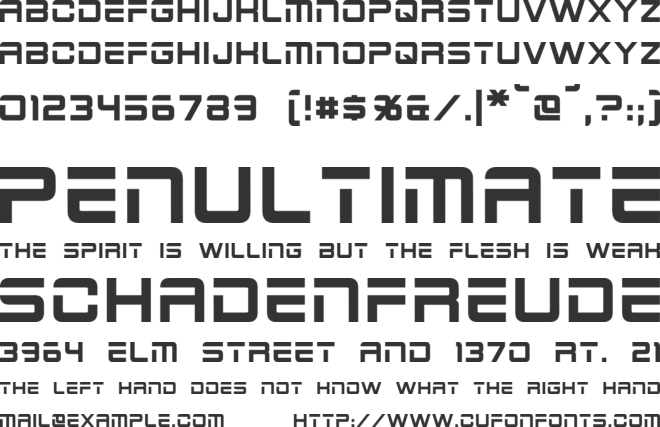
2015 Cruiser Font Family
Neale Davidson
2015 Cruiser is a “cut”, LCD-based typeface based on the police-car lettering used in the move “Back to the Future II”. Includes full alphabet, Euro, extended punctuation. Includes italic, bold, bold-italic, and hollow, hollow-italic versions.